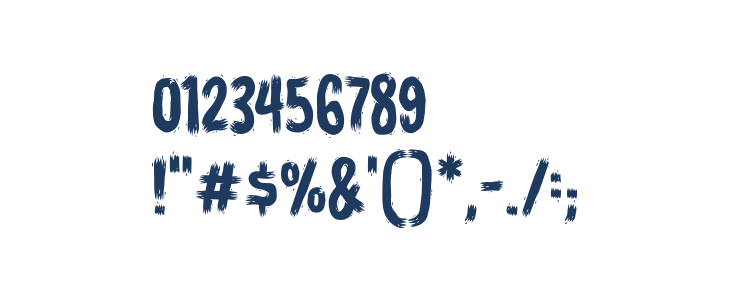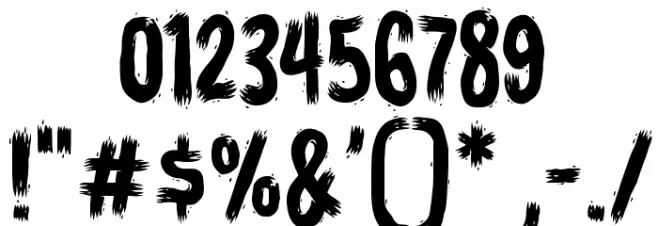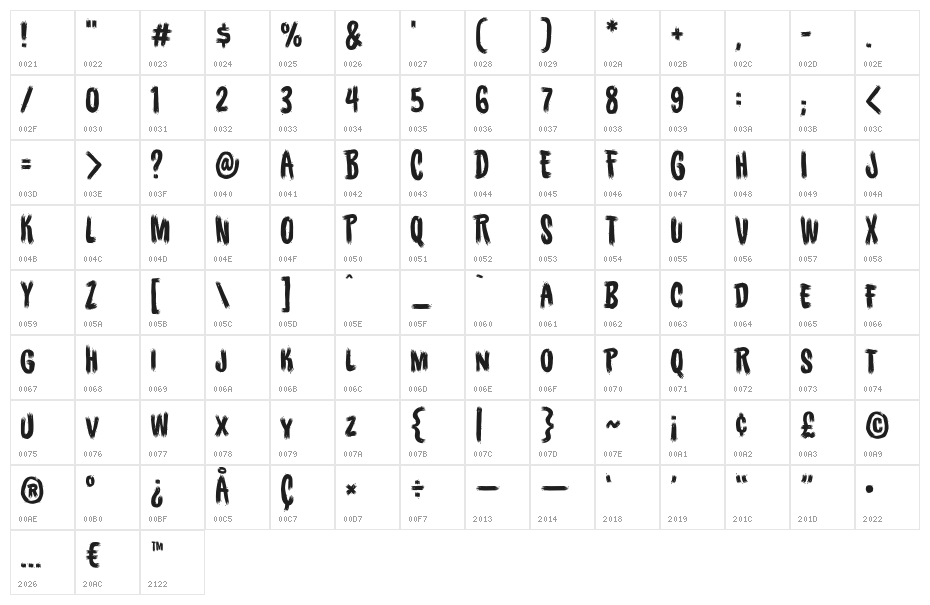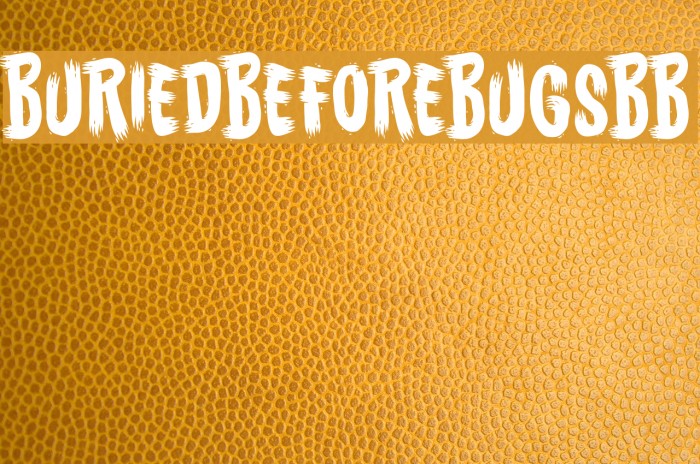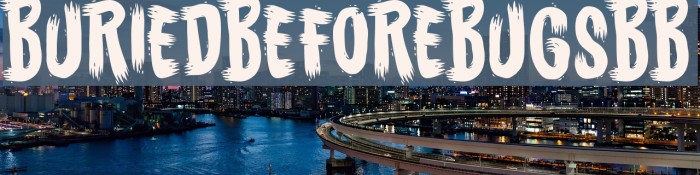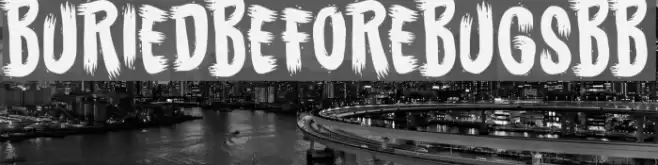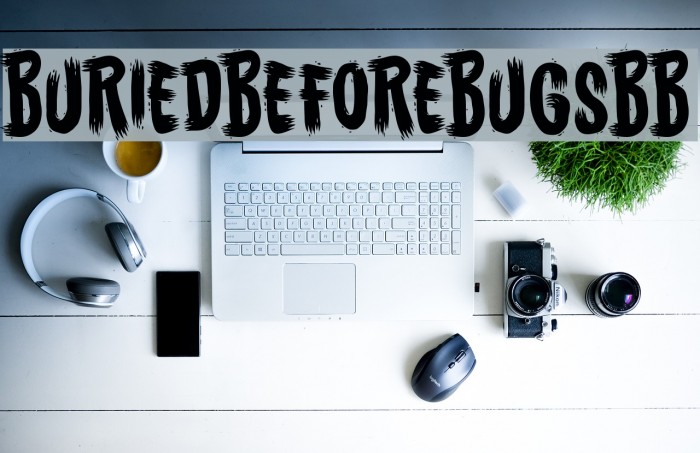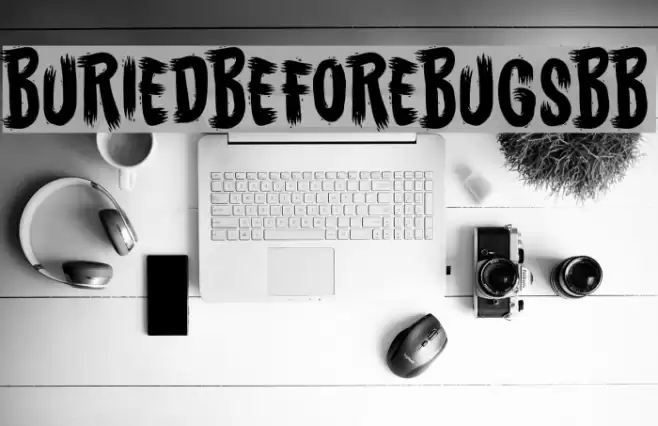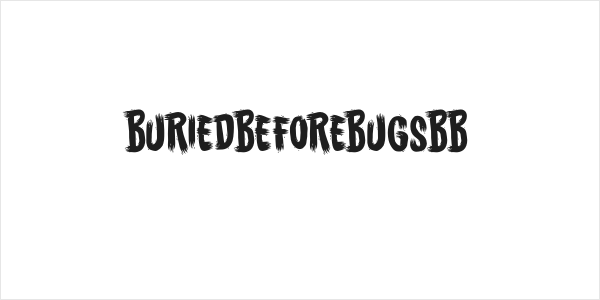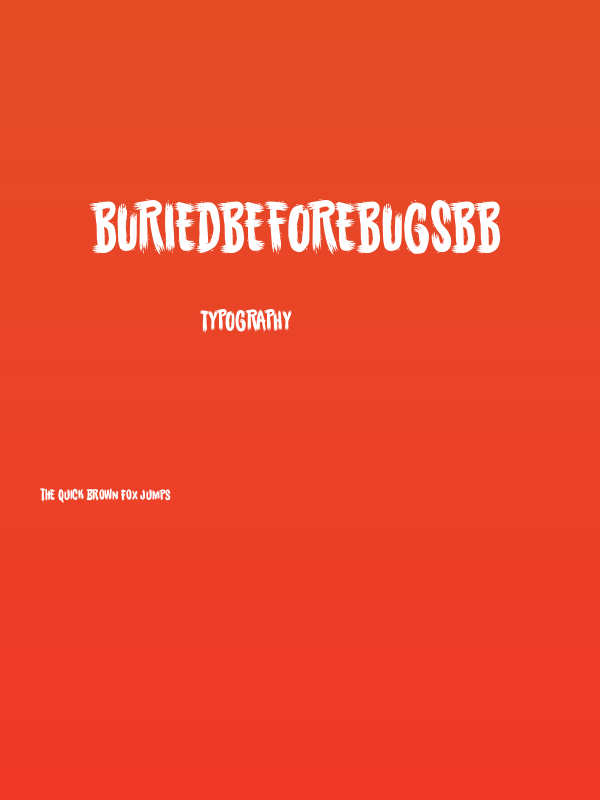
BuriedBeforeBugsBB Font
BuriedBeforeBugsBB Description
This font features a bold and dynamic brushstroke style, giving it a highly textured and energetic appearance. The characters are crafted with irregular edges, resembling hand-painted strokes, which adds a sense of movement and intensity. The uppercase and lowercase letters maintain a consistent style, with each character exhibiting unique variations in stroke thickness and direction. The numbers and special characters follow the same design principles, ensuring a cohesive look throughout. This font is ideal for projects that require a strong visual impact and a touch of artistic flair.
| Proposed Projects | Ideal for posters, album covers, branding, and any project needing a bold artistic touch. |